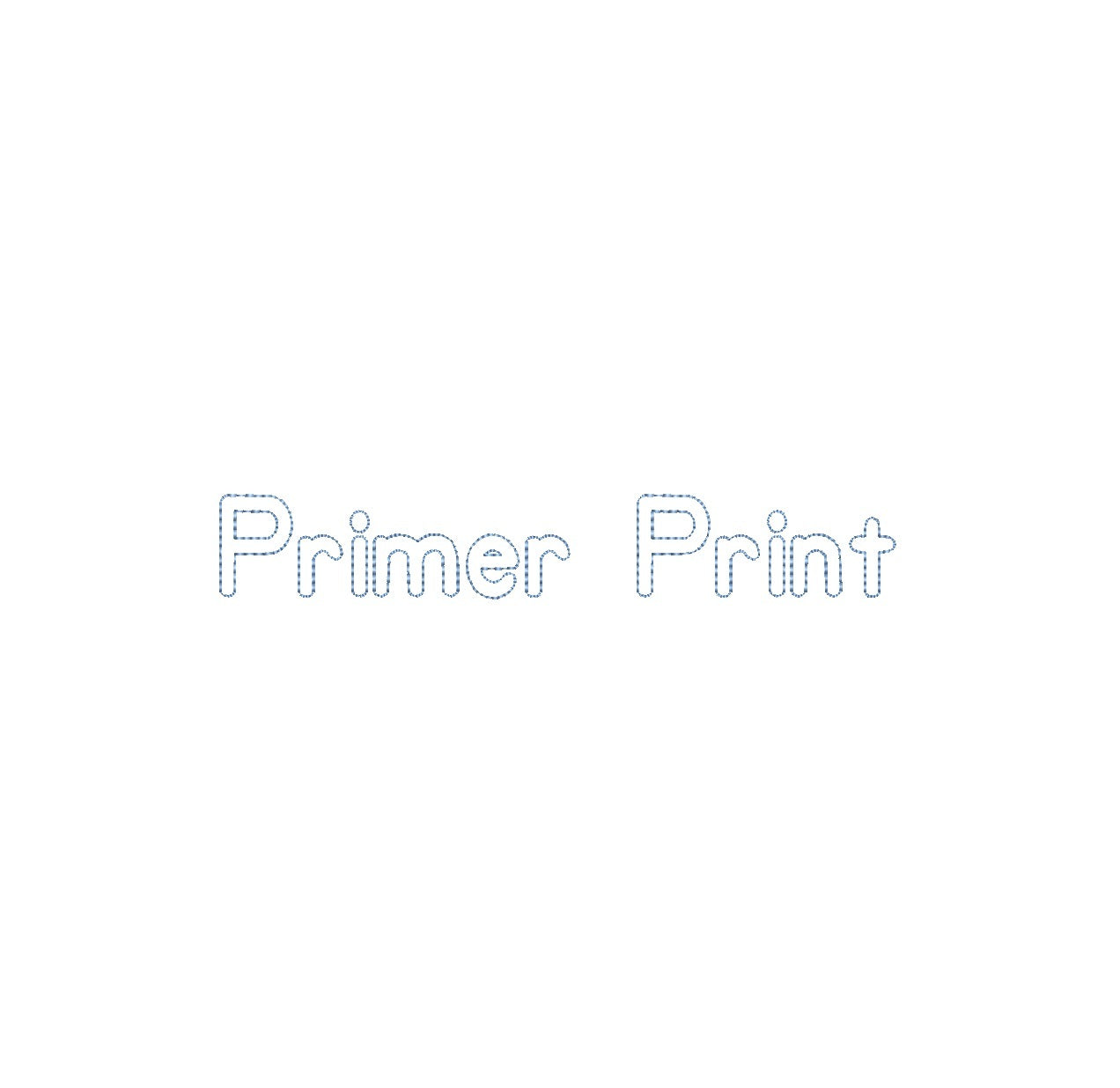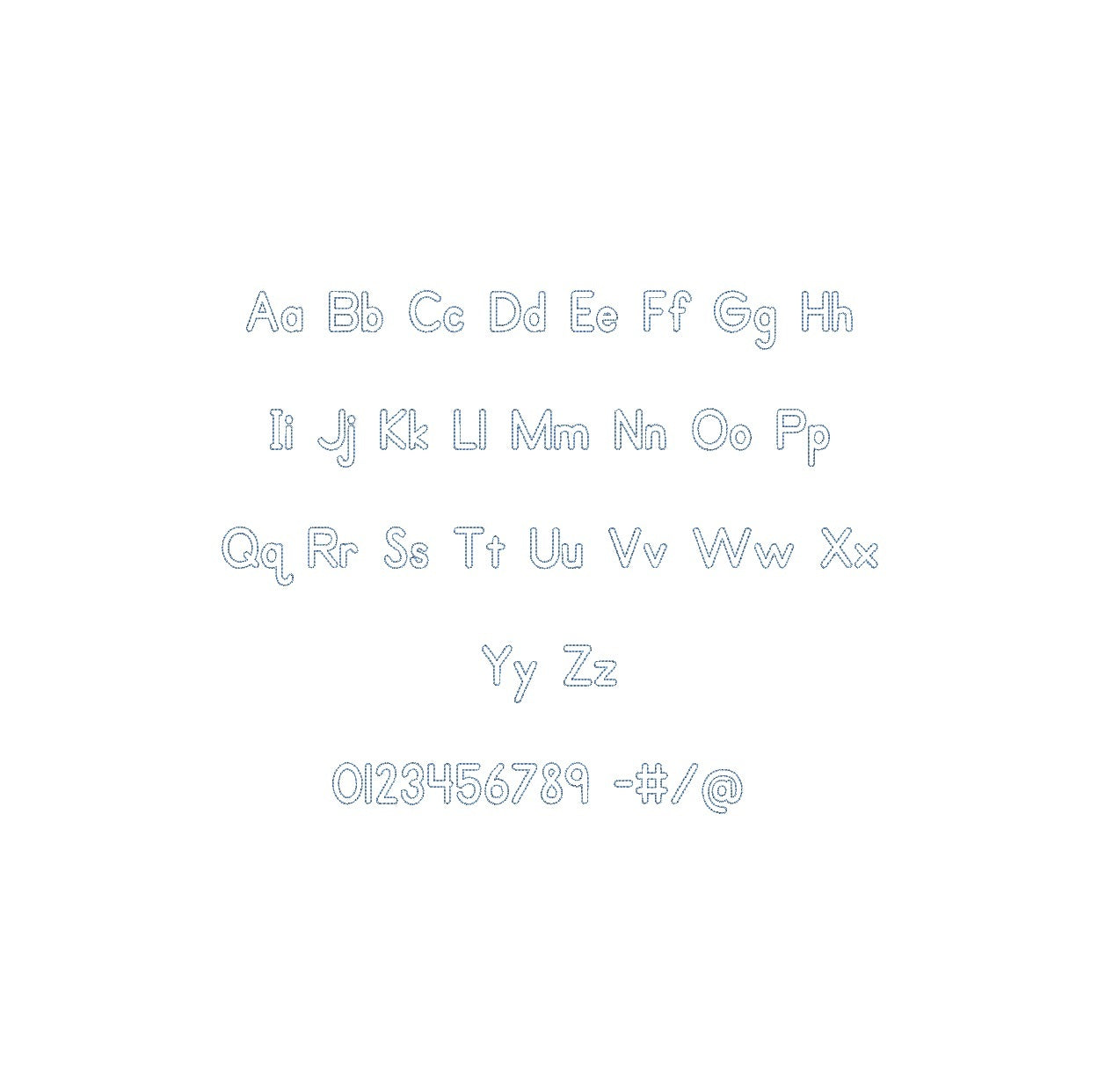
Elevate your embroidery projects with the Primer Print Bean Outline ESA font. Tailored for Wilcom Studio e4.5.6 and Hatch 3 versions and up, this font seamlessly blends classic charm and precision. Infuse your designs with a unique aesthetic, perfect for timeless monograms and embellishments. Experience seamless compatibility for exceptional results. Unleash a new level of stitching finesse with the Primer Print Bean Outline ESA font – your key to captivating designs that exude sophistication. Transform your creations into embroidery masterpieces that reflect your style. Elevate your projects with the Primer Print Bean Outline ESA font for truly remarkable embroidery.